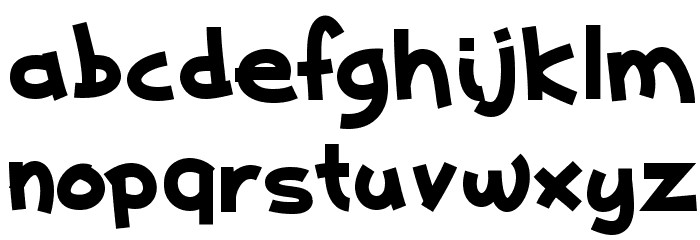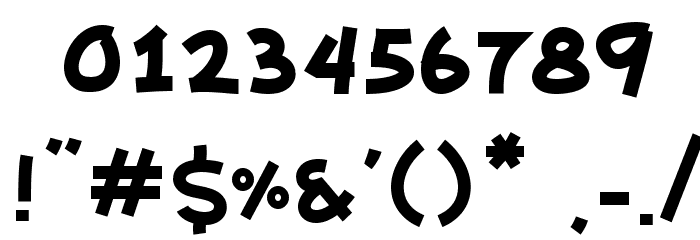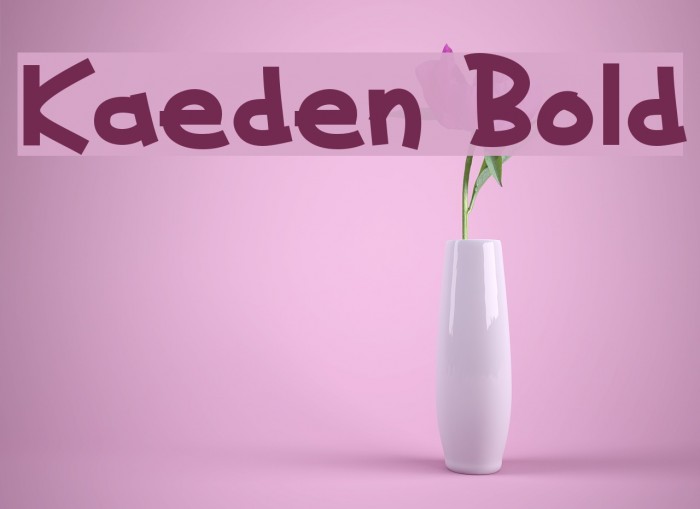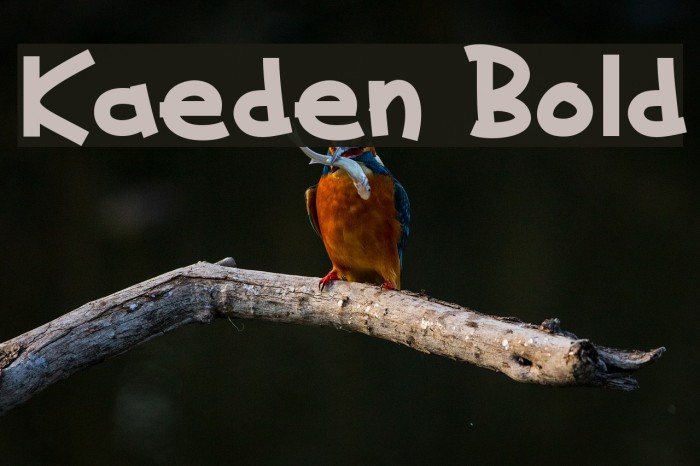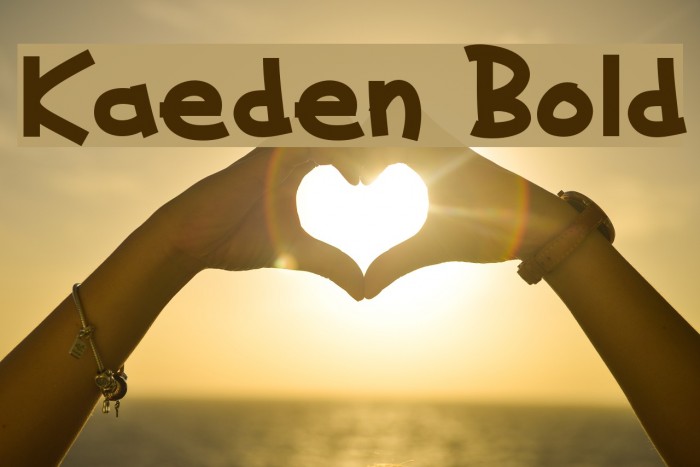
Kaeden Bold Font
This font features a playful and bold style with a hand-drawn appearance. The characters have a slightly irregular shape, adding a whimsical and informal touch. The strokes are thick and consistent, providing a strong visual impact. The uppercase and lowercase letters maintain a cohesive design, while the numbers and special characters are crafted to match the overall aesthetic. The font's unique style makes it suitable for projects that require a fun and engaging look.
A playful, bold font with a hand-drawn, whimsical style.
- Proposed Projects: Ideal for children's books, playful branding, posters, and creative invitations.
- Overall Style: Playful, Whimsical